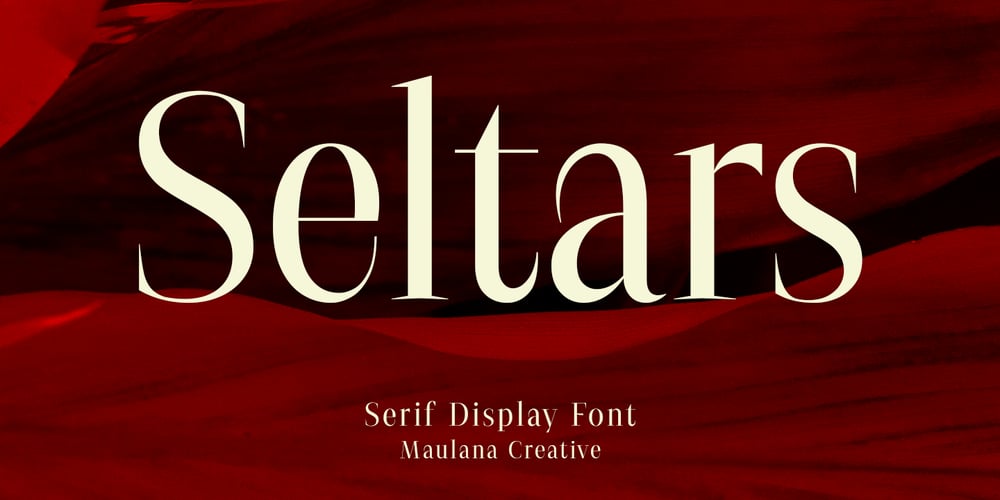
MC Seltars Font Family was designed by Gilang Maulana and published by Maulana Creative. MC Seltars contains 1 styles and family package options. Seltars is a modern display serif font. High Regular Contrast stroke, fun character with a bit of ligatures and alternates. To give you an extra creative work. Seltars font support multilingual more than 100+ language. This font is good for logo design, Social media, Movie Titles, Books Titles, a short text even a long text letter and good for your secondary text font with script or serif. Make a stunning work with Seltars font. Cheers, Maulana Creative